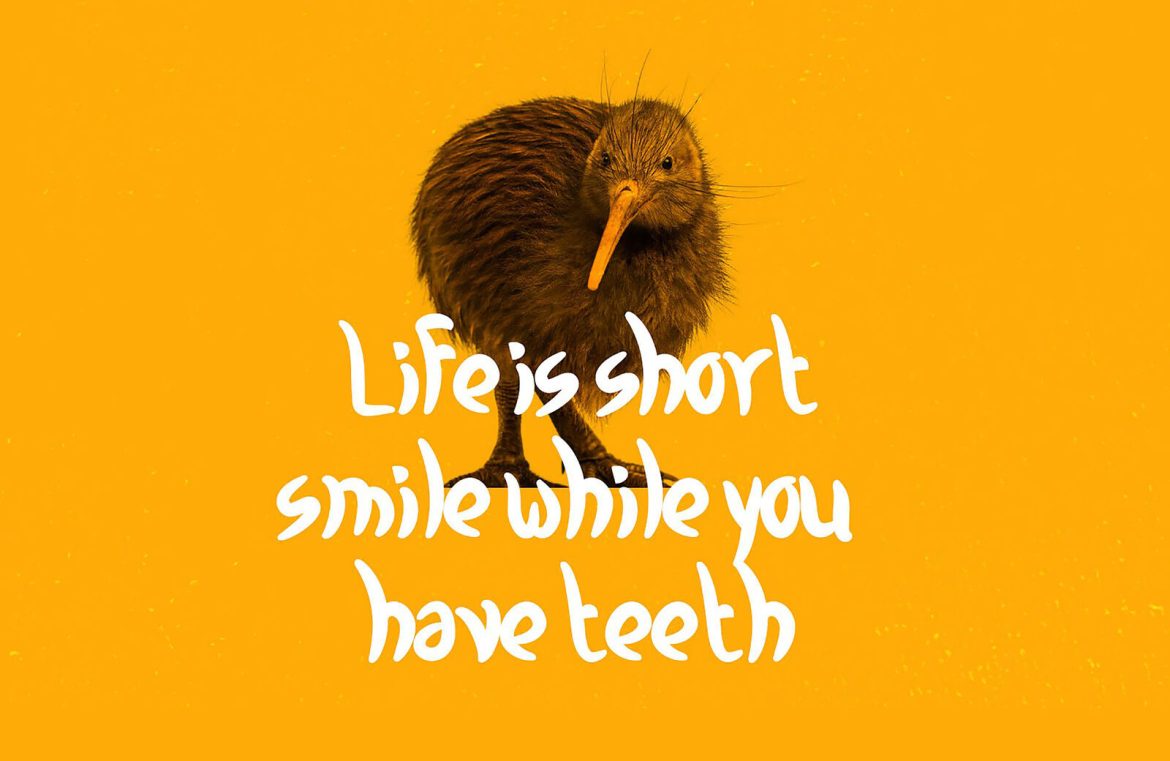
The year 2016 has marked an exceptional time for font creation and innovation. Artists and designers have increasingly turned to font digitization, riding the wave of the typographic renaissance. With a plethora of font editing tools at their disposal, and the knowledge that typography is a key component of website design, there’s a font for everybody’s taste and project.
This year’s trends have branched and flourished in all directions. Unlike previous years, the diversity of styles is vast with a reduced surge in both wildly inventive fonts and overly used sans-serifs. It seems we’ve found a middle ground. Below, you’ll find an array of the finest free fonts that emerged or were updated since the year’s start. From practical staples to charming eccentrics, these fonts are waiting to be downloaded and put to work. Peruse the selection, experiment with them, and if you utilize them in your designs, feel free to share the results!